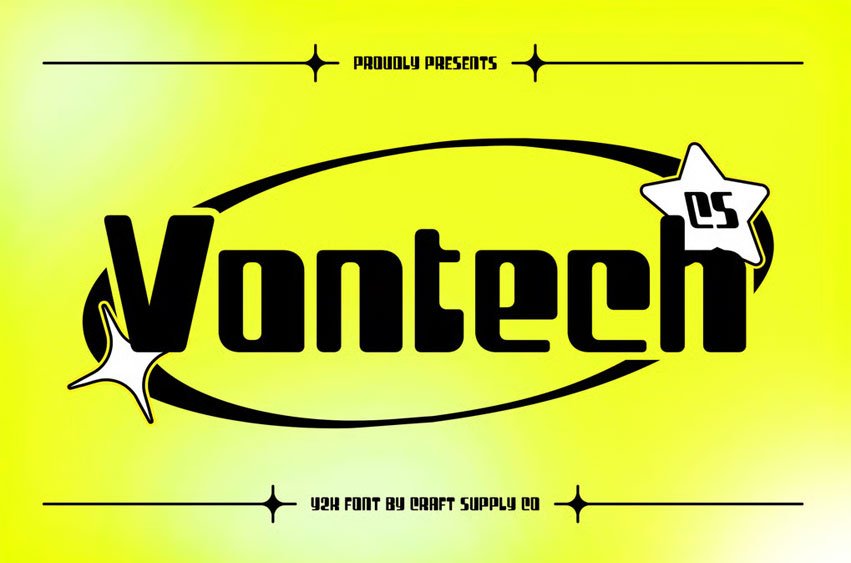
Vontech Font Dynamic Display Font for Modern Impact. This is a Y2K-inspired display font that captures the vibrant spirit of early 2000s design. Featuring bold outlines and strong geometric structure, it radiates energy and futuristic style, making it the perfect choice for designers who want to channel nostalgia with a modern edge.
Technology-Inspired Shapes with Bold Expression. With its techno-driven design and sharp contours, this font embodies innovation and excitement. Each letterform is crafted to exude motion and digital dynamism, reminiscent of the tech culture and futuristic visions that defined the Y2K era. This makes it ideal for gaming visuals, sci-fi posters, and digital branding seeking a bold, forward-thinking look.
Futuristic Flair with Playful Energy The combination of bold outlines and futuristic rhythm gives this font a striking visual presence. It’s not just a font it’s an expression of confidence and creativity, perfect for designs that aim to stand out in high-energy contexts like music visuals, party events, and tech campaigns.
Versatile for Digital and Print Design. From logos and branding to motion graphics and event posters, this font adapts effortlessly to various media. Its futuristic form and confident structure make it a reliable choice for projects that demand impact, clarity, and modern flair.